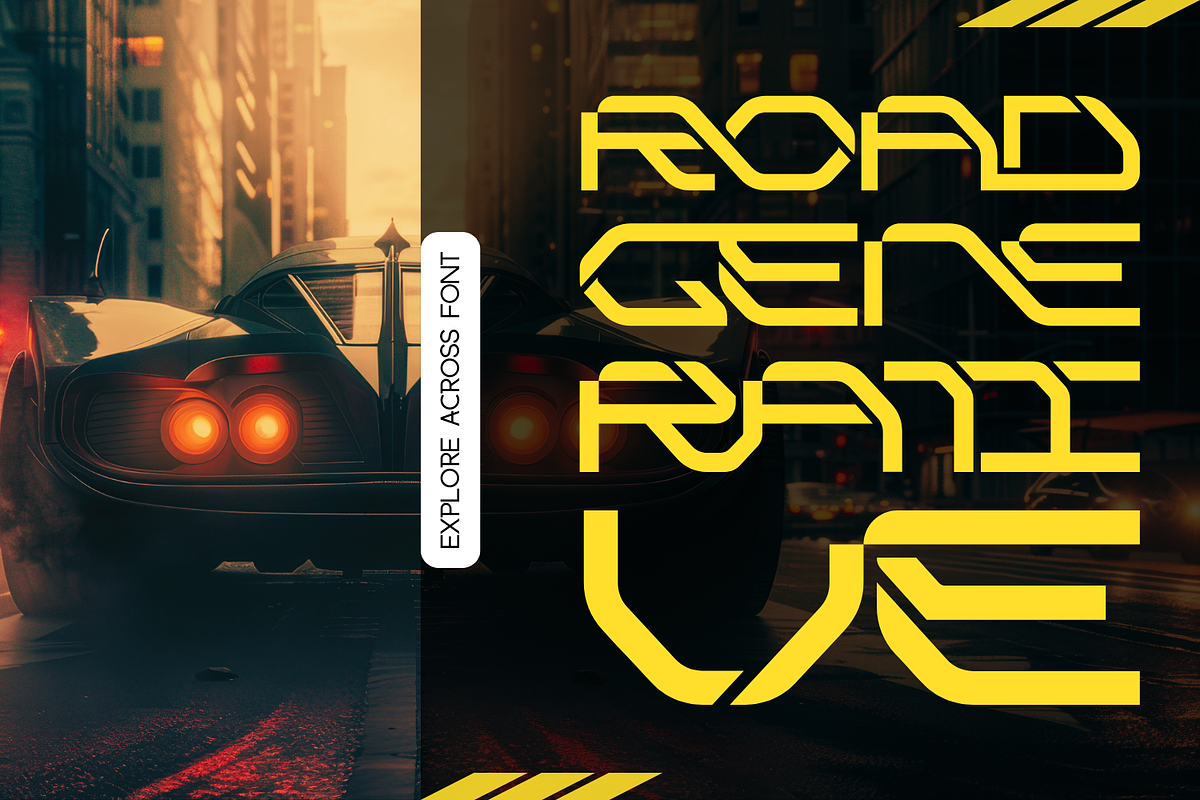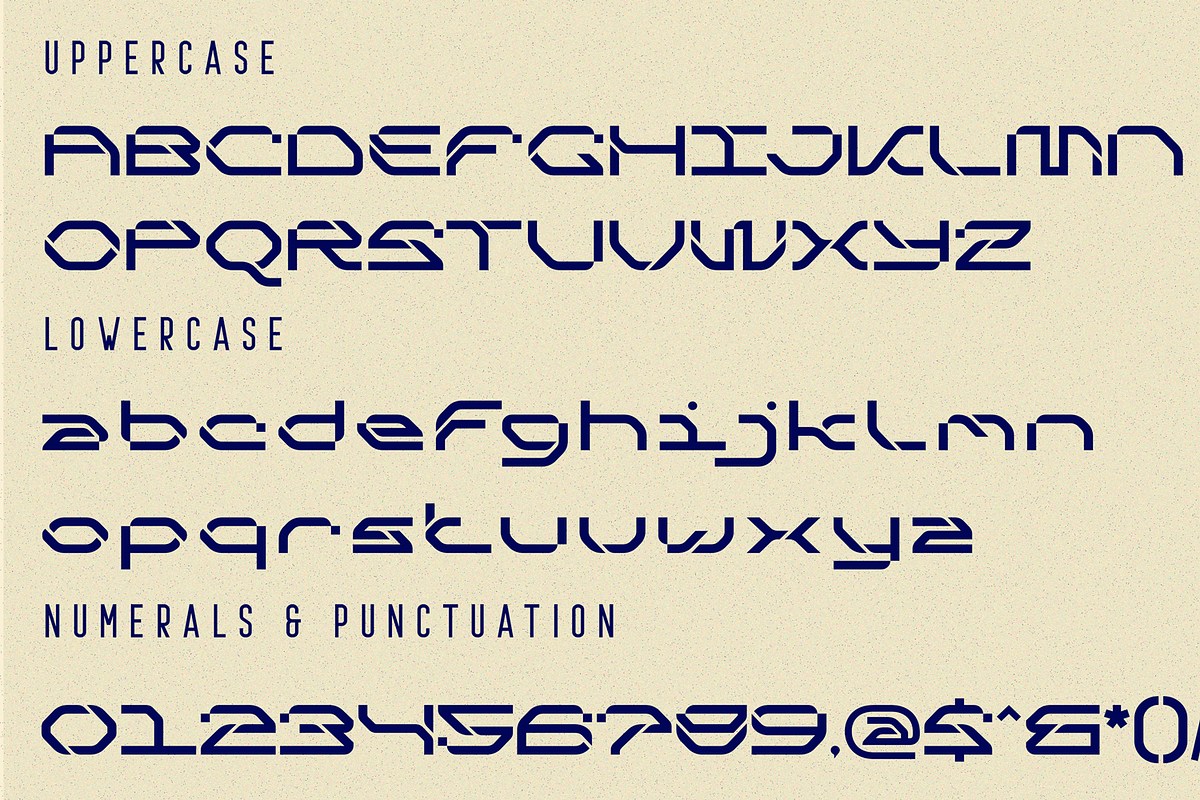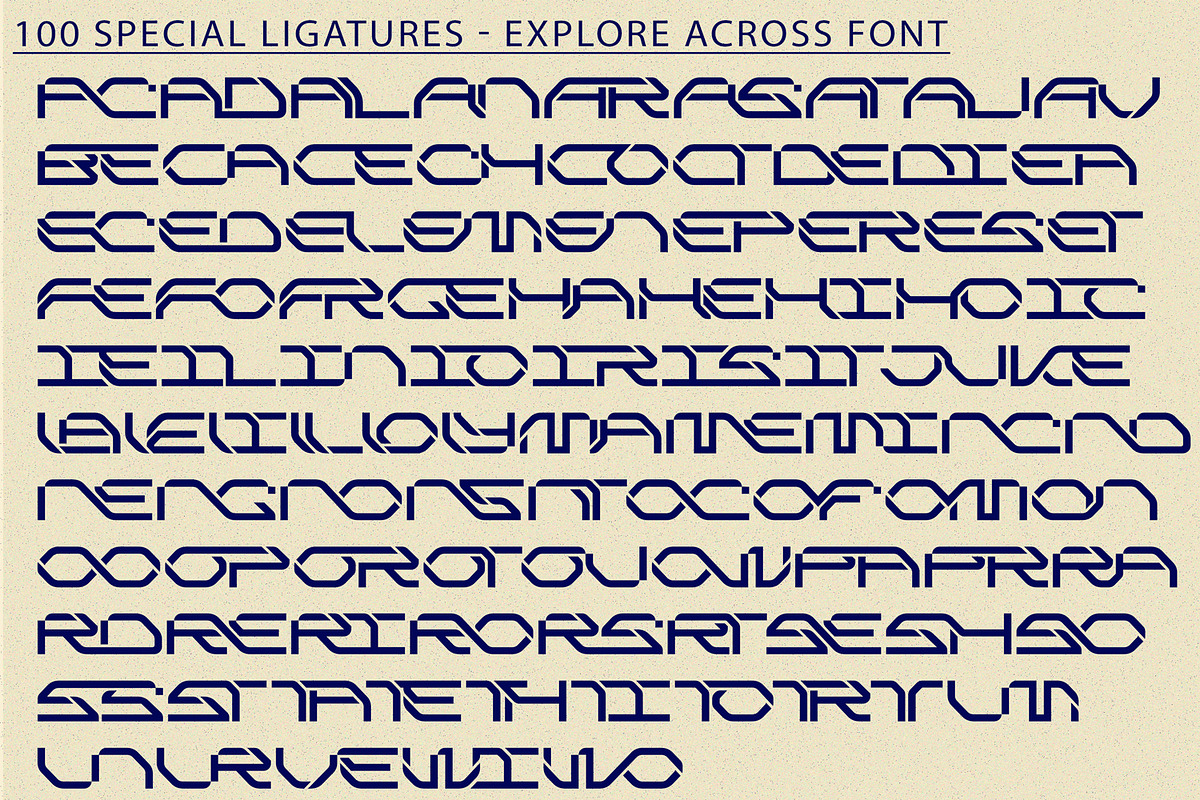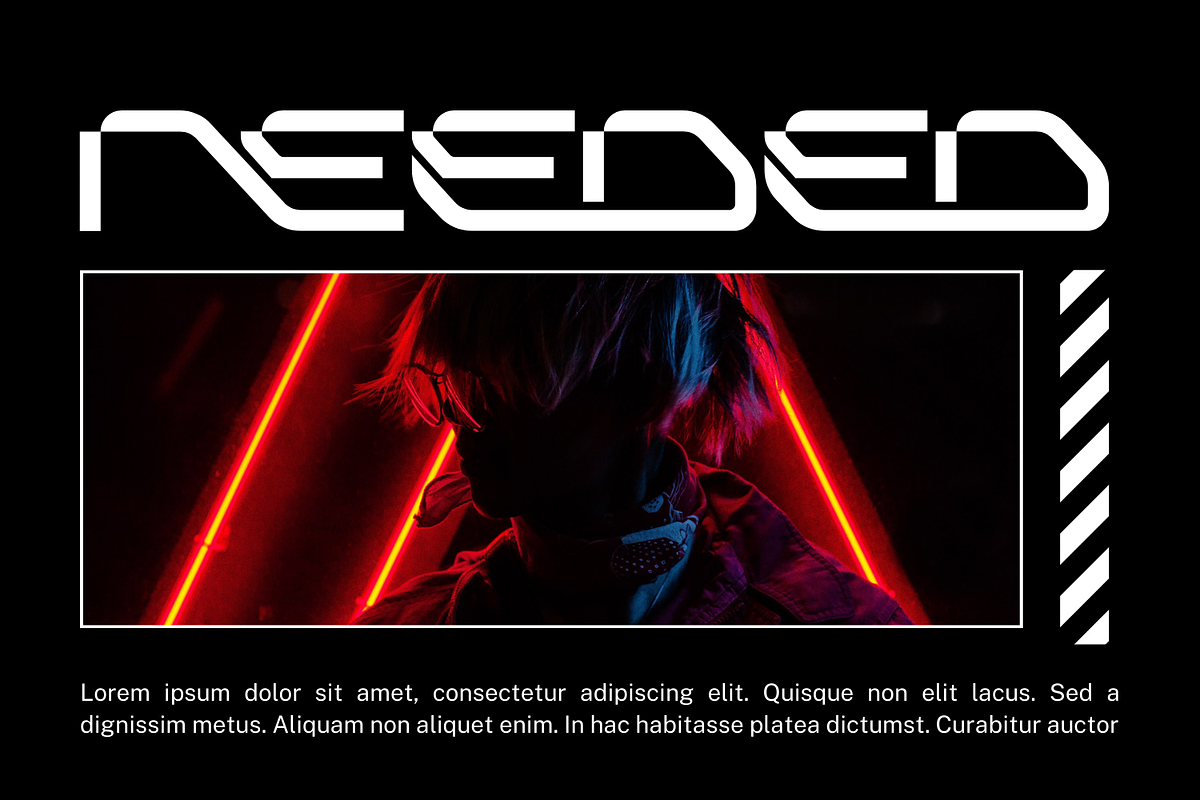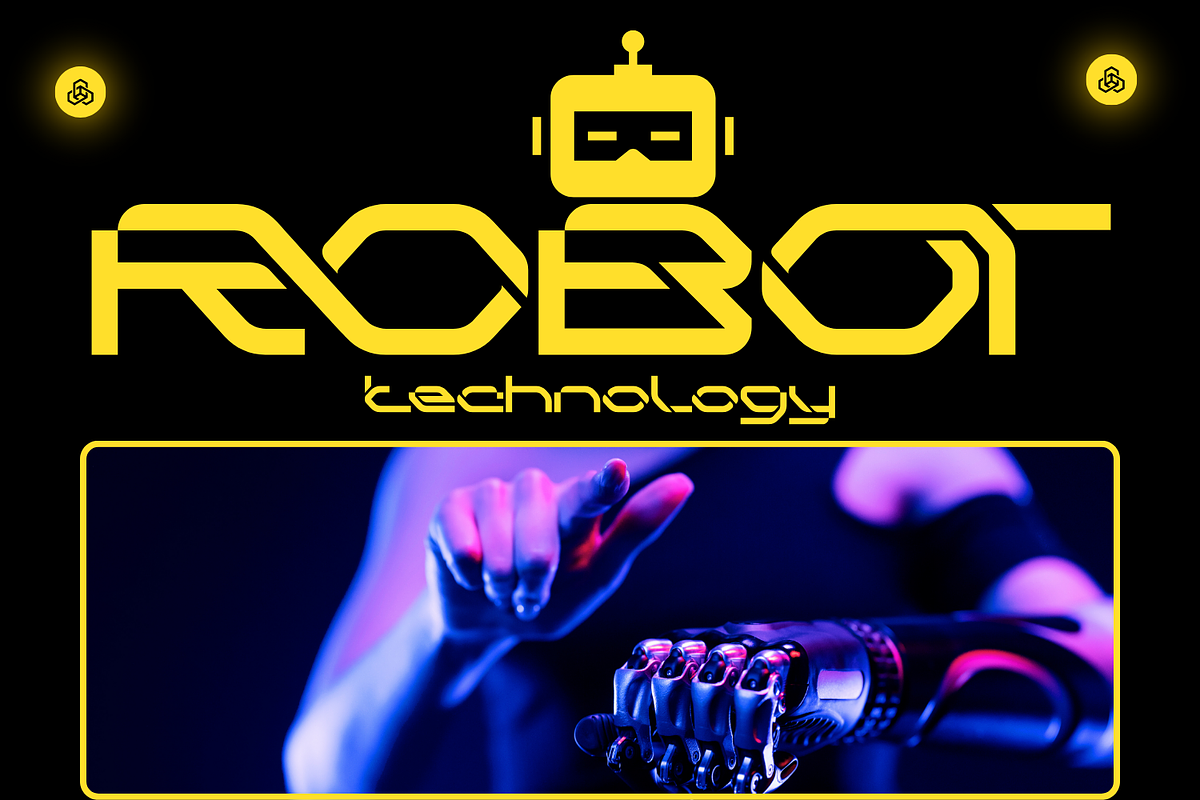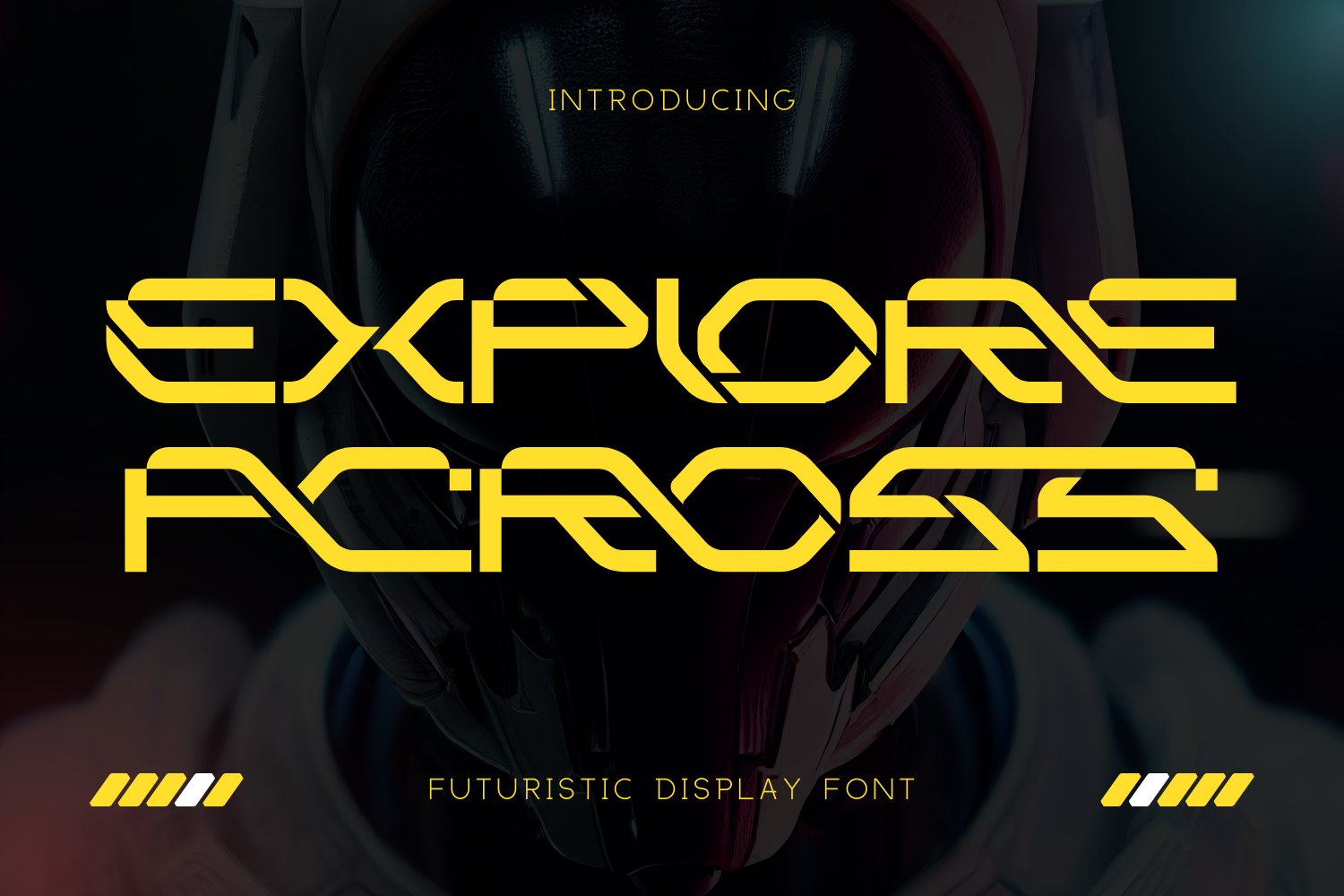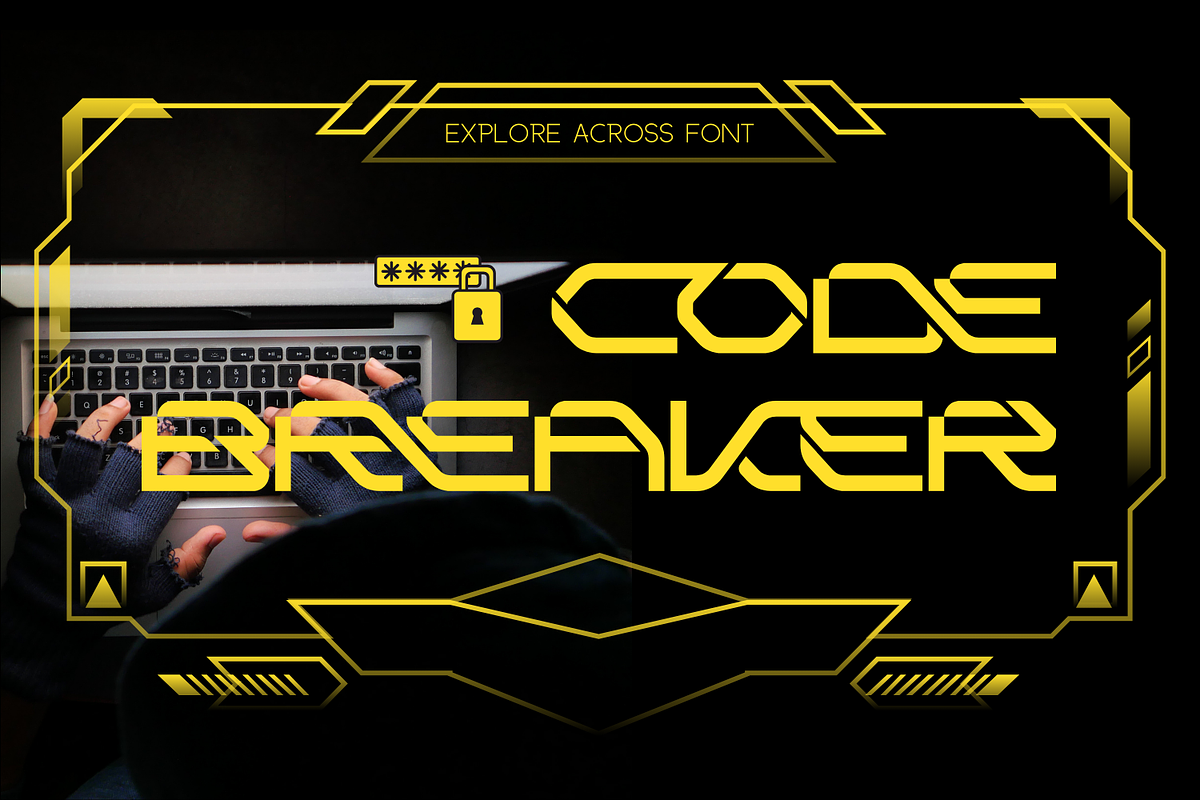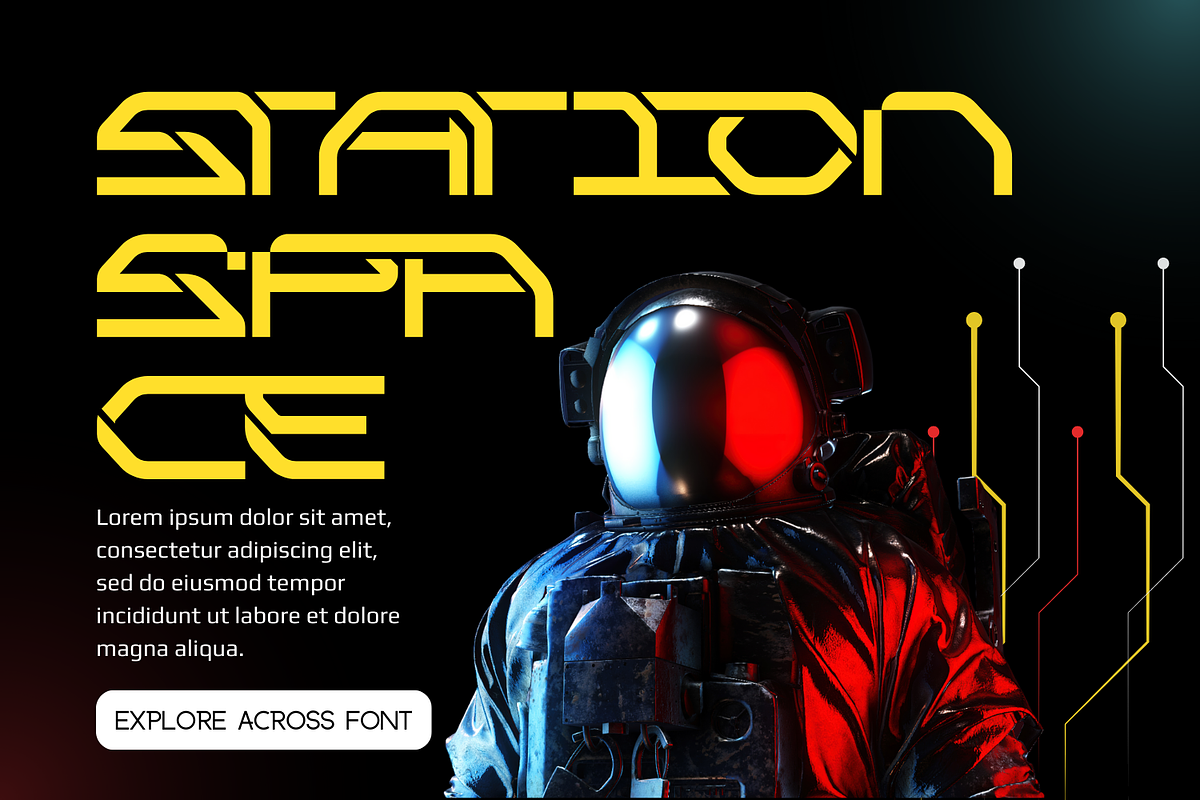
EXPLORE ACROSS - FUTURISTIC FONT
EXPLORE ACROSS - FUTURISTIC FONT – A Futuristic Sci-Fi Display Font, is a bold futuristic display font designed with sharp geometric cuts, dynamic angles, and high-tech aesthetics. Inspired by sci-fi culture, cyberpunk visuals, and space-age design, this typeface is built to capture innovation, speed, and forward-thinking energy. Its unique letterforms with futuristic strokes and modular shapes make it perfect for technology branding, esports logos, sci-fi posters, movie titles, gaming interfaces, and digital experiments that demand a cutting-edge presence.
- Uppercase & Lowercase Letters
- ~100 Special Ligatures
- Accented Characters for multilingual support
About 100 ligatures combined with Stylistic Alternates Font:
AC AD AL AN AR AS AT AU AV BE CA CE CH CO CT DE DI EA EC ED EE EL EM EN EP ER ES ET FE FO FR GE HA HE HI HO IE IC IL IN IO IR IS IT JU KE LA LE LI LL LO LY MA ME MI NC ND NE NG NO NT NS OC OF OM ON OO OP OR OT OU OW PA PR RA RD RE RI RO RS RT SE SH SI SO SS ST TA TE TH TI TO TR TT UM UN UR VE WI WO